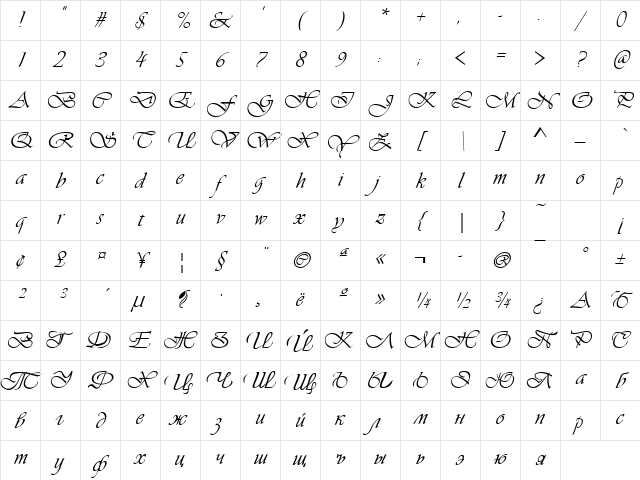
Complete VivaldiD Regular glyph index. Displaying only characters natively supported by VivaldiD Regular font.
VivaldiD is a composed and adaptable typeface that performs quietly and consistently across a wide range of design contexts.